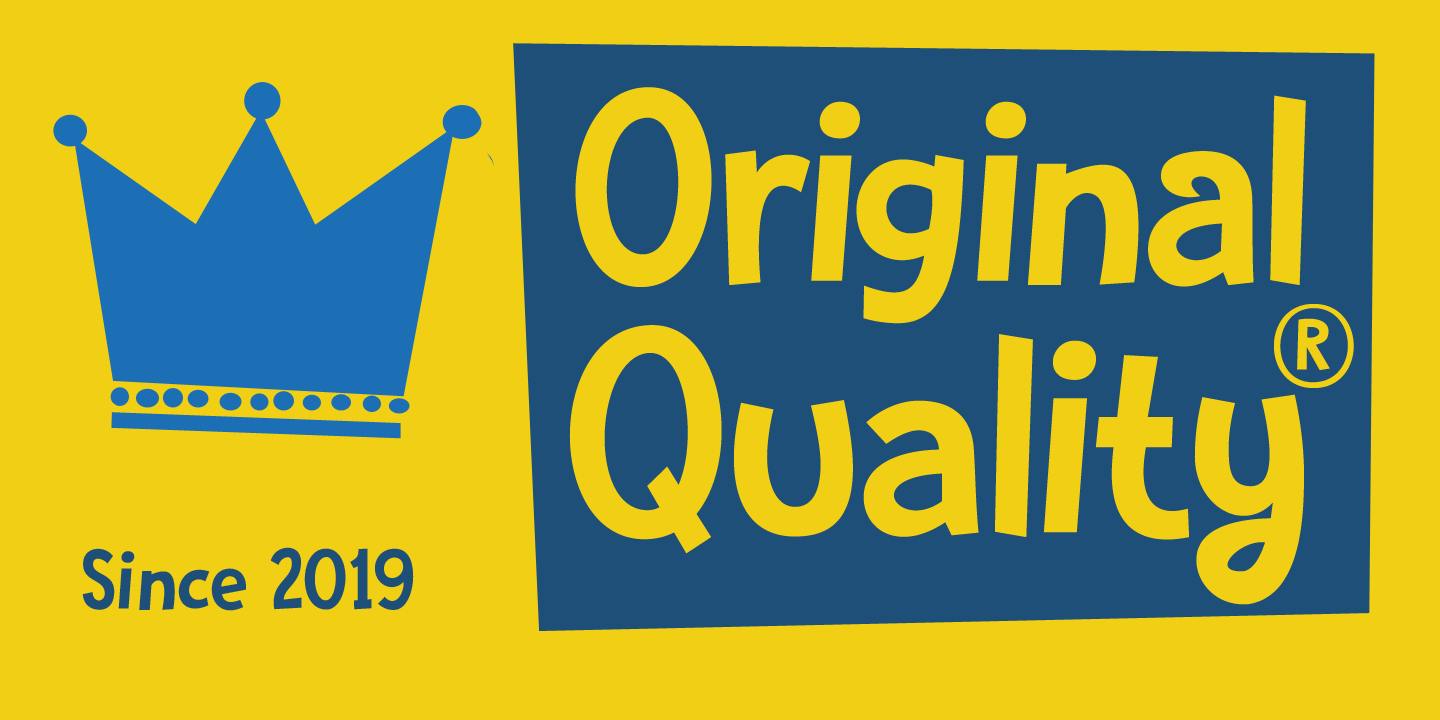
Elevate your designs with Original Quality Font Free Download – a premium sans-serif that embodies timeless craftsmanship and modern versatility. This meticulously crafted typeface blends humanist warmth with geometric precision, delivering exceptional readability for both digital and print applications where quality matters most.
Why Original Quality Font Stands Out
Perfectly balanced letter proportions
Multiple weights for sophisticated hierarchy
Flawless readability in all sizes
Neutral yet distinctive character